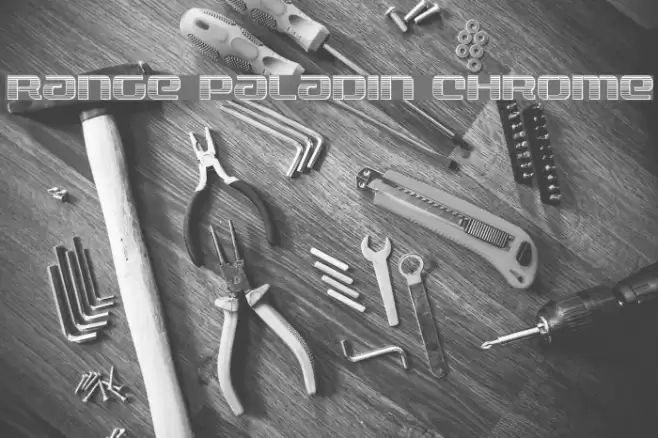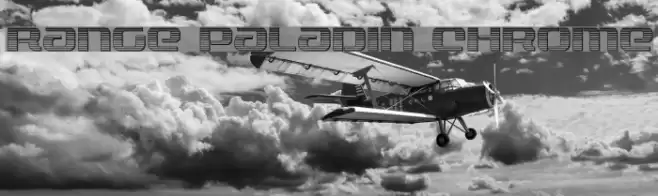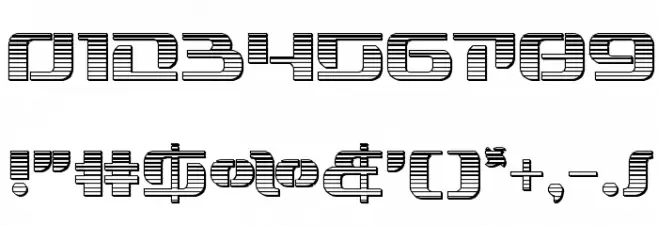
Range Paladin Chrome Font
Range Paladin Chrome Description
This font features a unique, futuristic design with a series of parallel lines creating a striped effect within each character. The letters are bold and geometric, with a strong emphasis on horizontal lines that give it a dynamic, tech-inspired appearance. The uppercase and lowercase letters maintain a consistent style, while the numerals and special characters integrate seamlessly with the overall design. The font's distinct look makes it ideal for projects that require a modern, digital aesthetic.
A futuristic, striped font with bold, geometric characters from Uncategorized fonts.
- Proposed Projects: Ideal for technology branding, sci-fi posters, video game titles, and digital media.